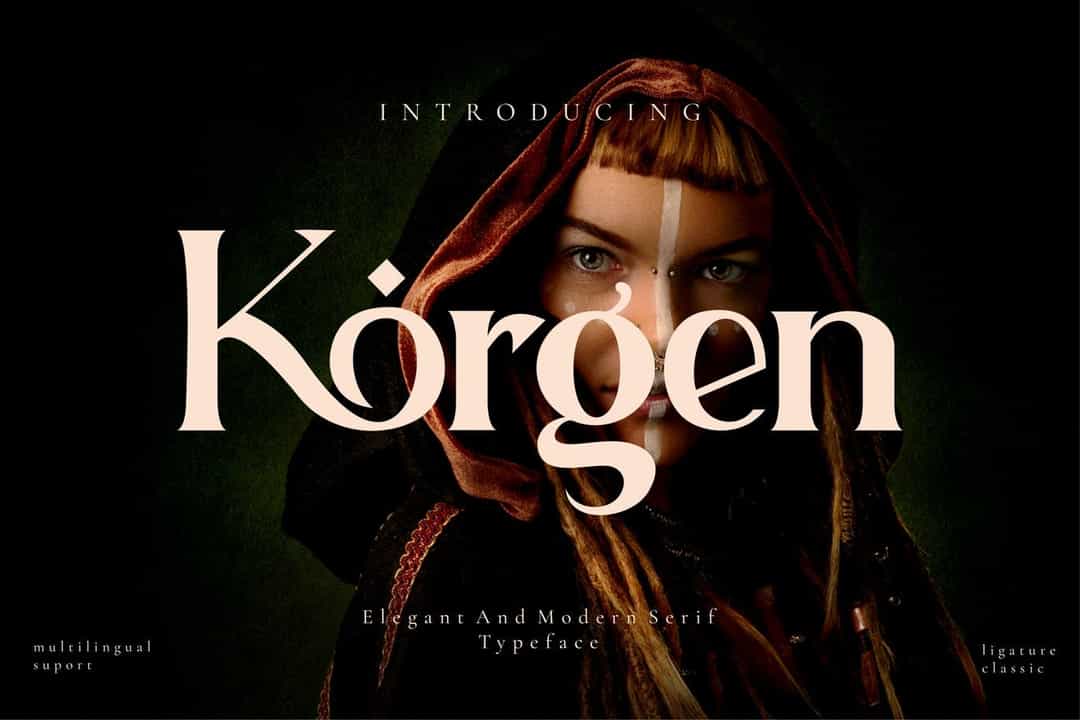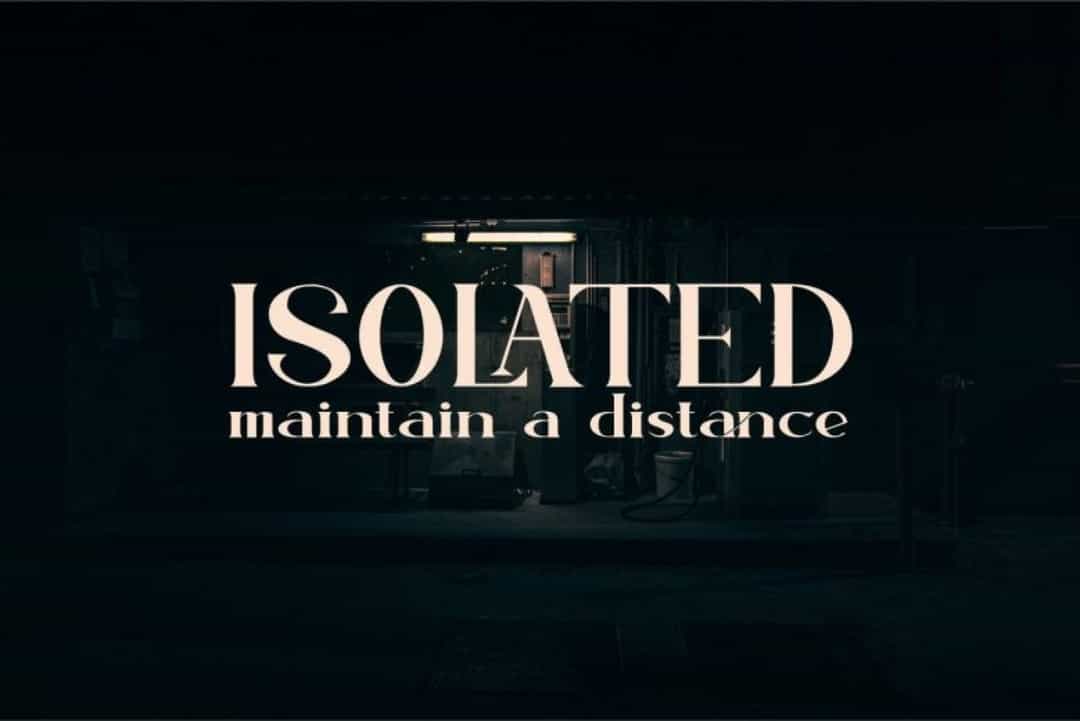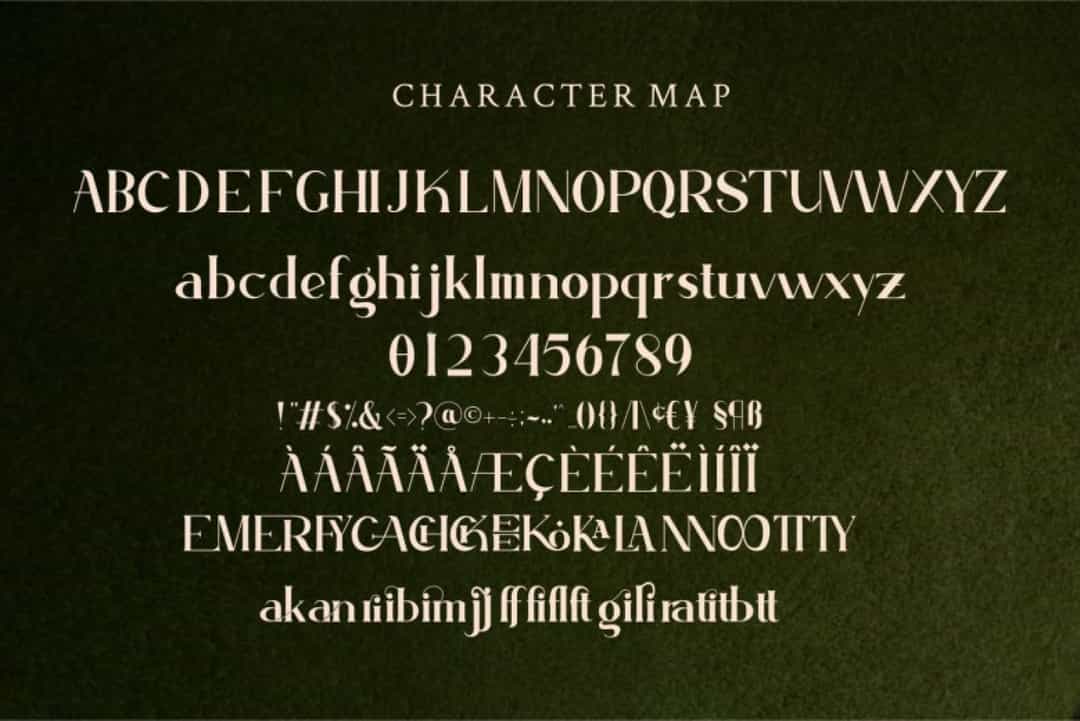
Korgen is a striking serif font designed to stand out, from logos, editorial, and web design applications alike. Combining retro charm with contemporary aesthetics, Korgen can help create memorable logos, editorial, and web designs with its distinctive sharp serifs paired with thin strokes that evoke mid-century architecture vibe.